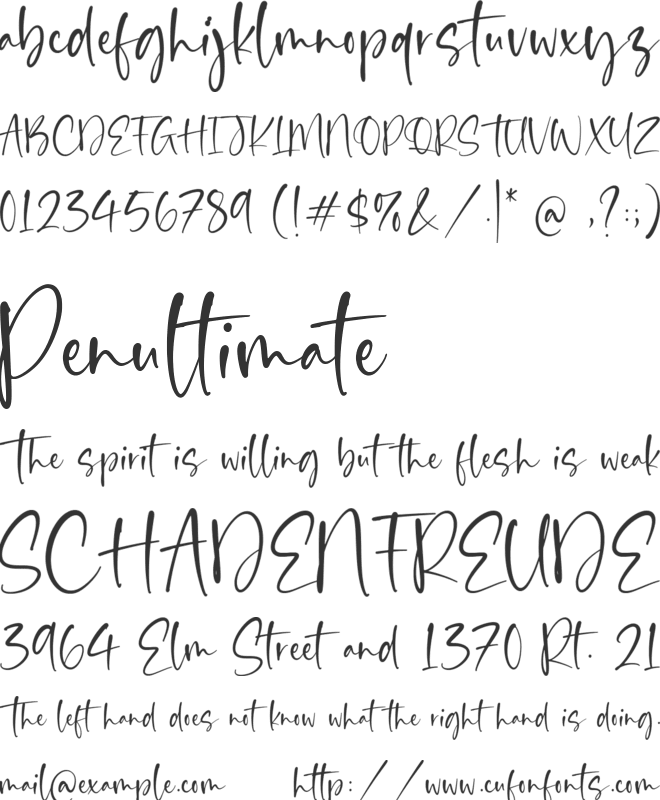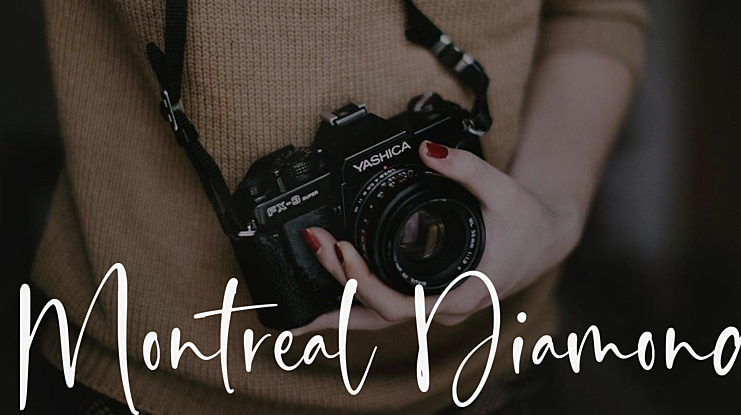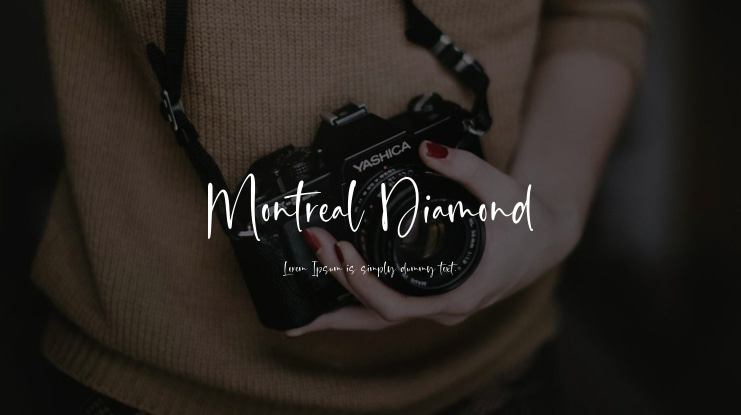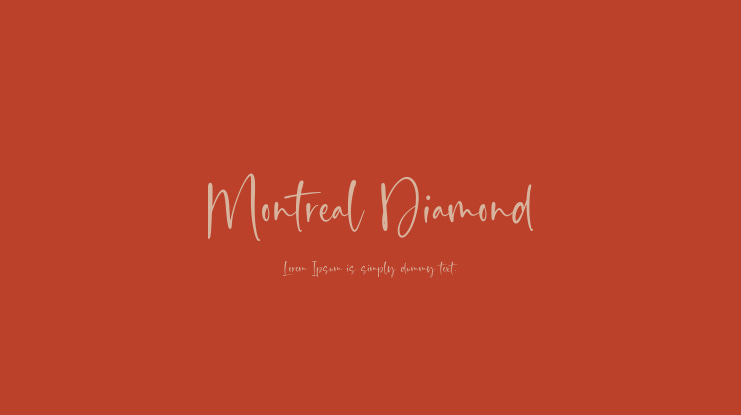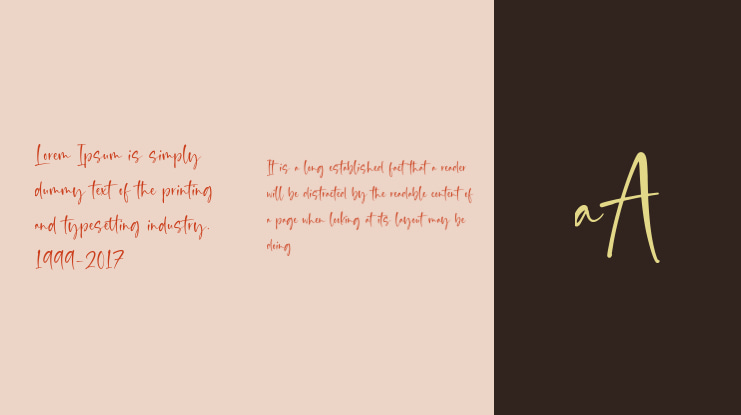
Montreal Diamond Font
The Montreal Diamond Font is a contemporary handwritten script font that adds a modern and lively touch to your business. Discover the font's enchanting qualities and experience it for yourself.
Montreal Diamond is an ideal choice for various applications, including product packaging, branding projects, magazines, social media, weddings, or any situation where you want to emphasize words on a background.
• Complete set of standard alphabet and punctuation
• Supports multilingual characters